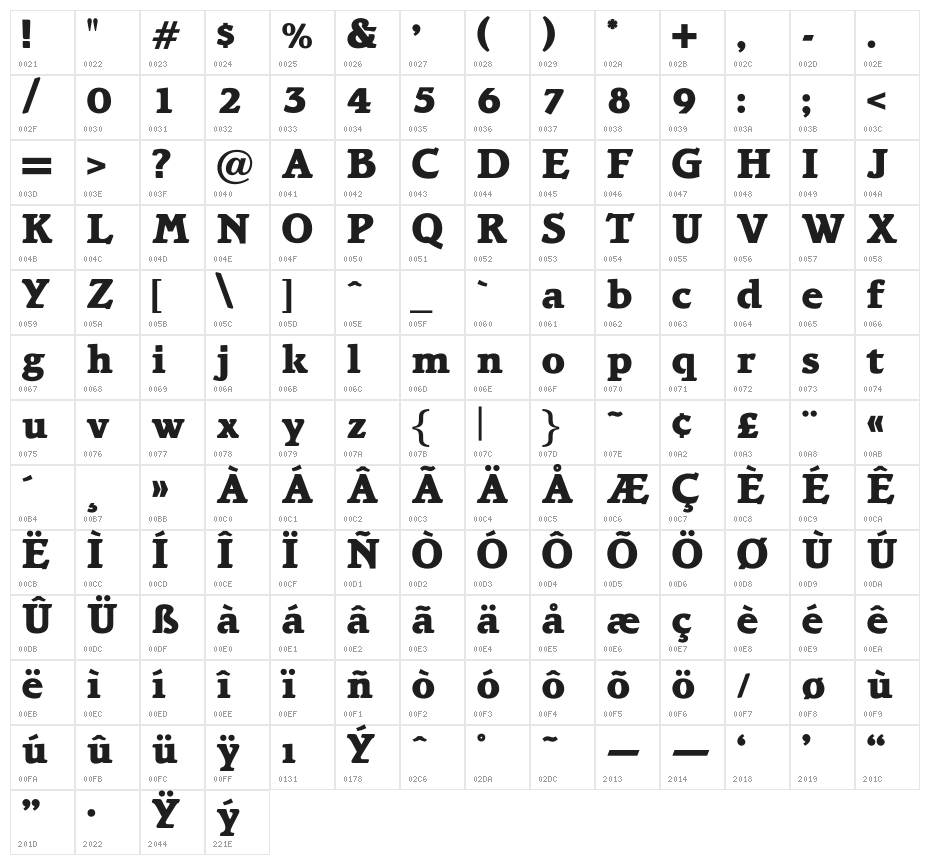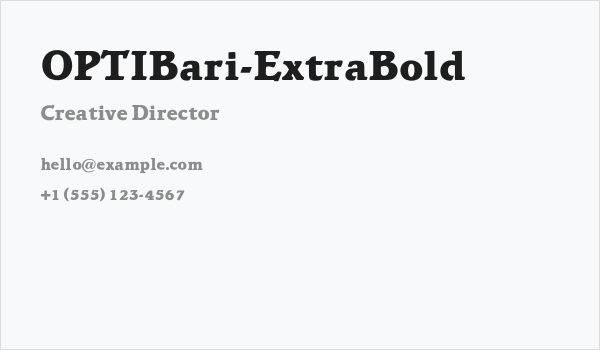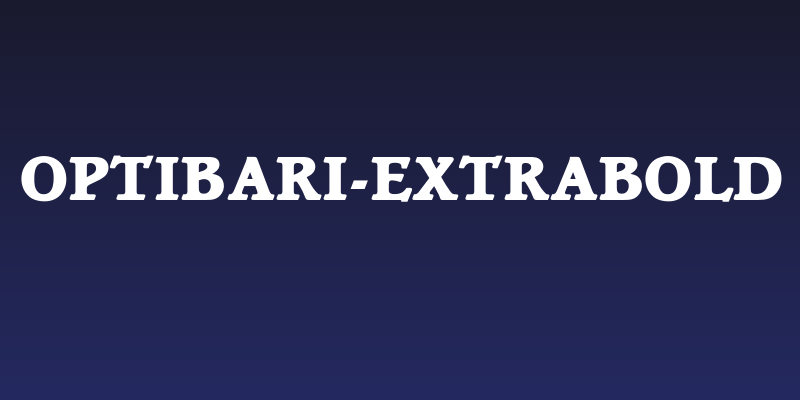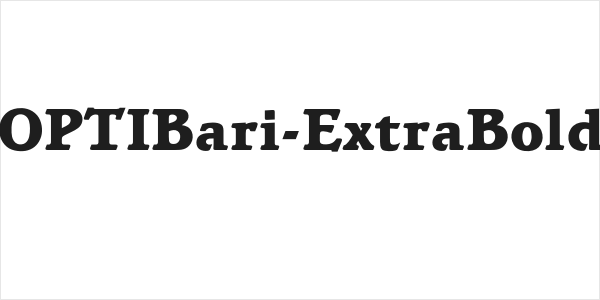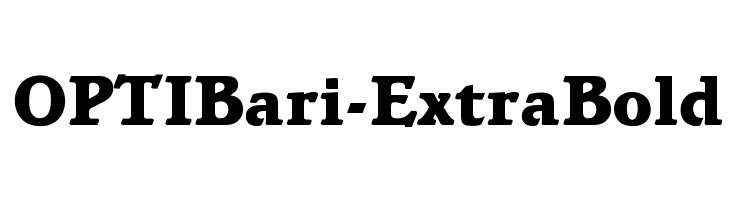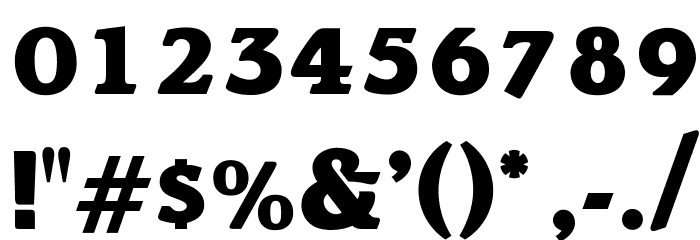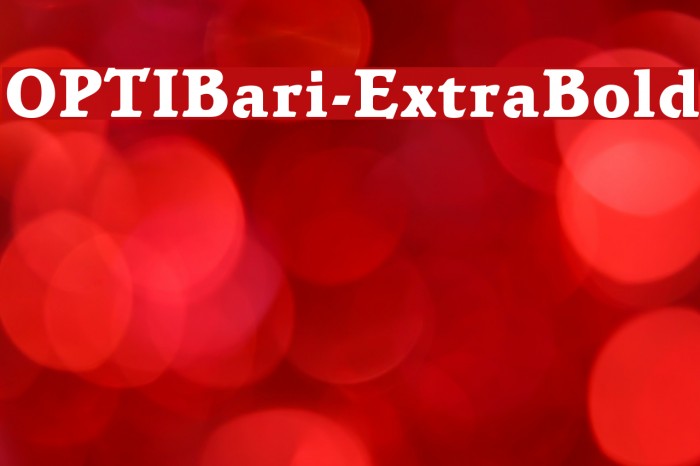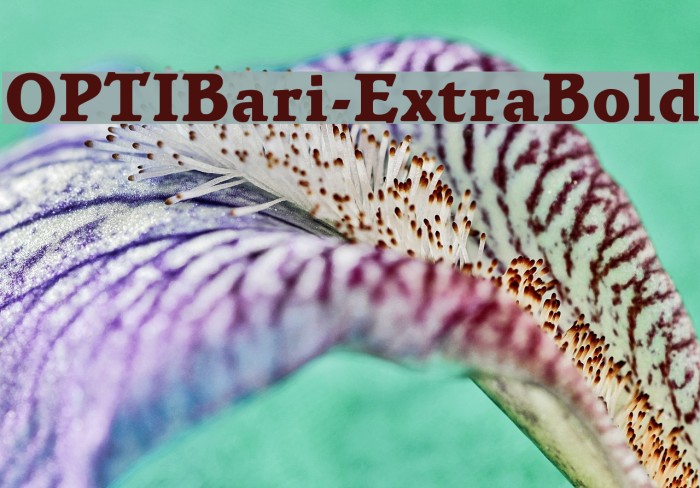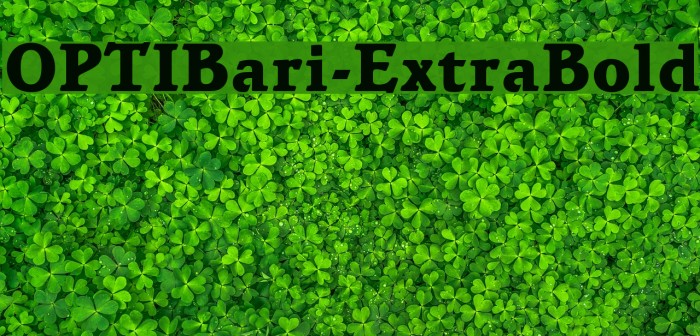
OPTIBari-ExtraBold Font
OPTIBari-ExtraBold Description
This typeface exhibits a bold and commanding presence, characterized by thick, sturdy strokes and a robust structure. The serifs are pronounced, adding a touch of classic elegance while maintaining a modern appeal. The uppercase letters are uniformly aligned, providing a sense of stability and strength. The lowercase letters complement this with a slightly rounded appearance, enhancing readability. Numbers are clear and distinct, making them suitable for various applications. Special characters are well-defined, ensuring versatility in design projects. Overall, this font combines traditional serif elements with a contemporary boldness, making it ideal for impactful headlines and branding.
| Proposed Projects | Ideal for branding, headlines, posters, and any project requiring a strong, authoritative typeface. |